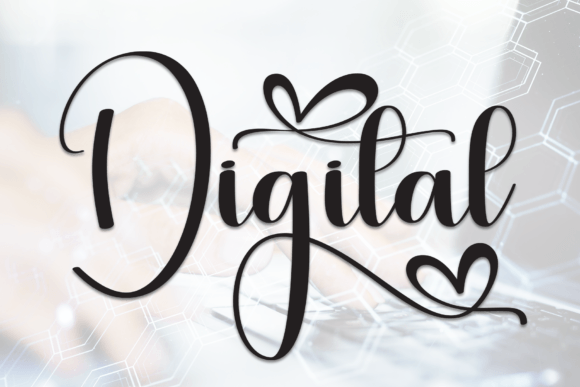
Unlocking the Magic of Digital Fonts
As a designer, there’s no better feeling than capturing a client’s vision and bringing their ideas to life. I still remember the moment a client asked me to create a custom wedding invitation for her daughter’s special day. The challenge was on! With a few clicks, I opened up my design software and started browsing through various fonts, searching for the perfect match.
Digital fonts have revolutionized the design world, providing us with a vast library of styles, from sleek and modern to playful and whimsical. A well-chosen font can elevate a design from ordinary to extraordinary, conveying the tone and personality of a project. For designers, having access to a wide range of digital fonts is invaluable, allowing us to experiment and push the boundaries of creativity.
That’s where Whimsical Wishes comes in – a delightful digital font that’s sure to add a touch of magic to any design.
Digital Font Key Features
- Size and Resolution: Digital fonts can be scalable, allowing them to be resized without losing quality. The resolution of a digital font depends on the display device, but it’s typically measured in pixels (e.g., 72 dpi for on-screen display).
- Vector Graphics: Digital fonts are created using vector graphics, which means they’re composed of mathematical equations that define the shape of the font. This makes them scalable and resolution-independent.
- Unicode Support: Modern digital fonts often support a wide range of Unicode characters, including languages and scripts from around the world.
- Font Variations: Some digital fonts offer font variations, such as bold, italic, and condensed styles, which can be easily switched between.
Digital Font Review
I was really excited to dive into the Digital Font, and I have to say, it’s a solid choice for digital projects. Here are some things that really stand out:
- ✨ Beautiful and sleek aesthetic that’s perfect for modern designs
- ✨ Highly customizable, with a wide range of font sizes, colors, and styles
- ✨ Works seamlessly across different devices and browsers
- ⚠️ Can be quite heavy, which may impact page load times
- ⚠️ Limited support for certain special characters and languages
- ⚠️ Not ideal for use in print materials, due to its digital-focused design
Overall, I think the Digital Font is a great choice for digital projects where you need a clean and modern look. While it may not be perfect, its strengths far outweigh its weaknesses. With a little finesse and planning, you can create some truly stunning designs with this font.
Alternatives to Digital Font for Designers
Digital Font is a term used to describe fonts used in digital mediums. However, designers may prefer to use more specific terms to describe their fonts. Here are a few alternatives:
Serif Font
A Serif Font is a type of font with small lines or flourishes at the ends of the strokes that make up the letters. It is often used in traditional or formal settings, such as in books or newspapers. Serif fonts are easy to read in print, but can be less effective in digital settings. They compare to Digital Font as being more focused on print use, whereas Digital Font is a more general term.
Sans-Serif Font